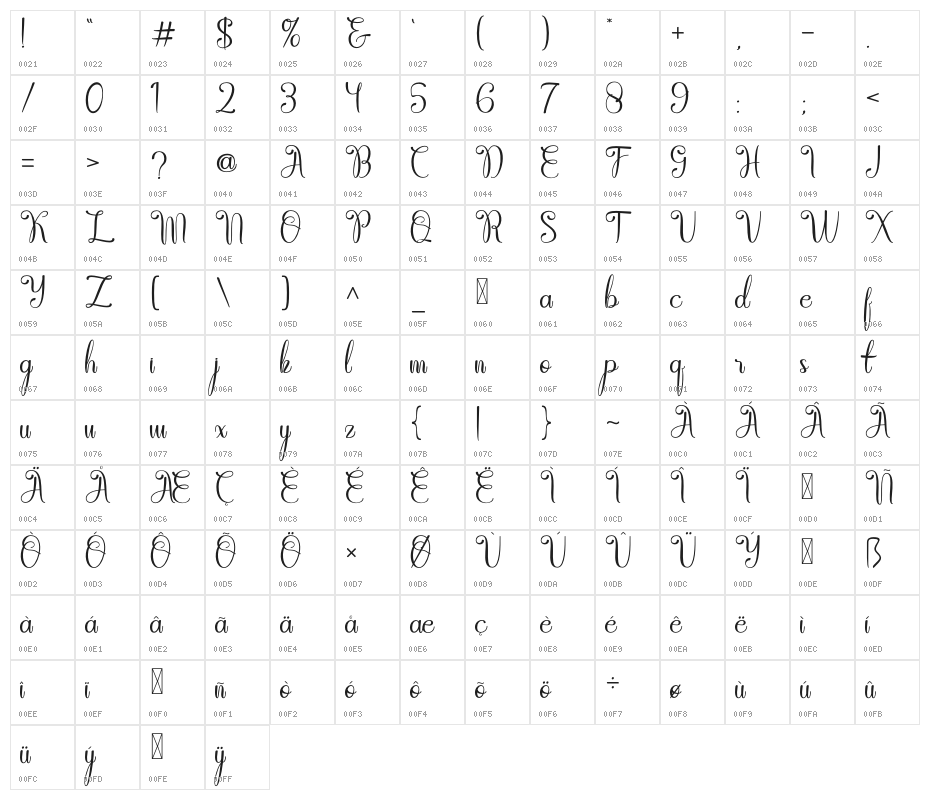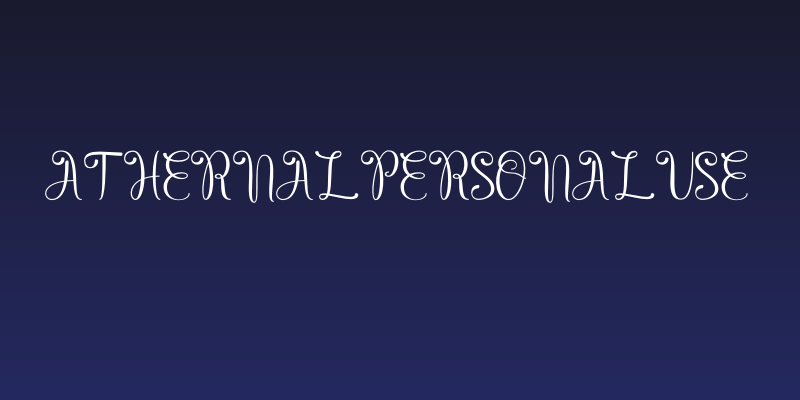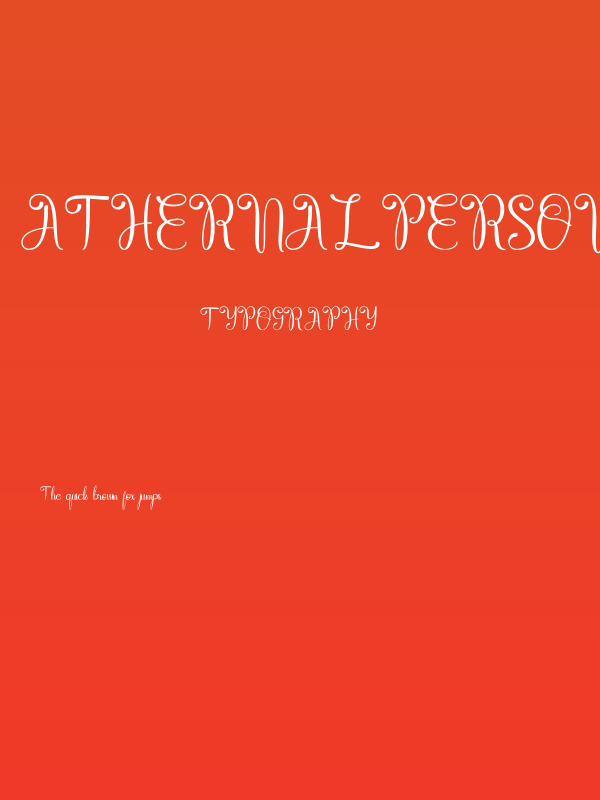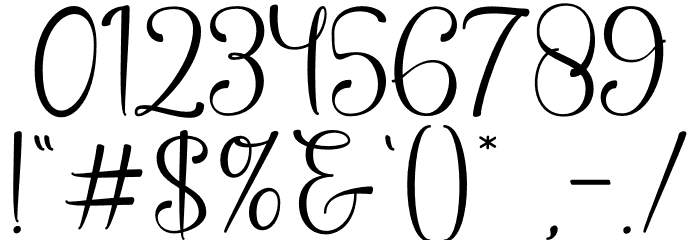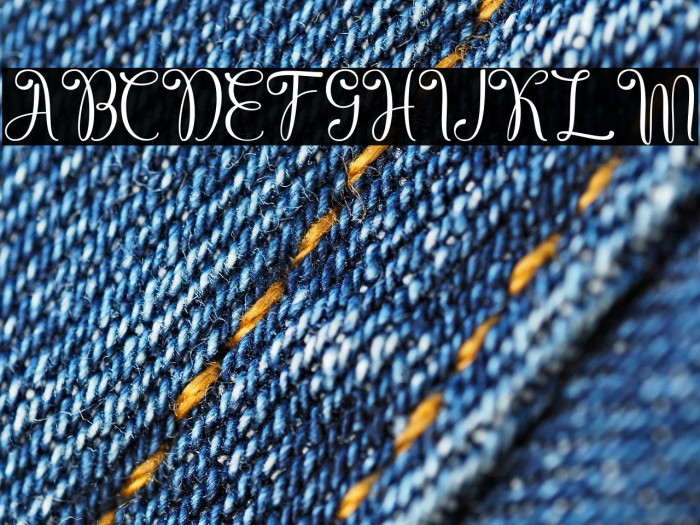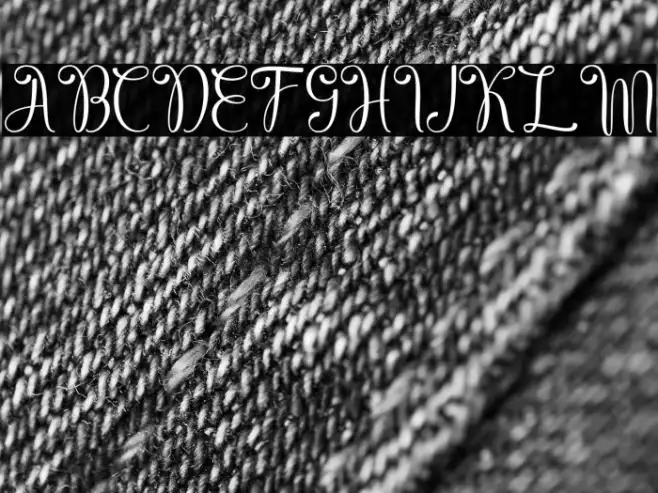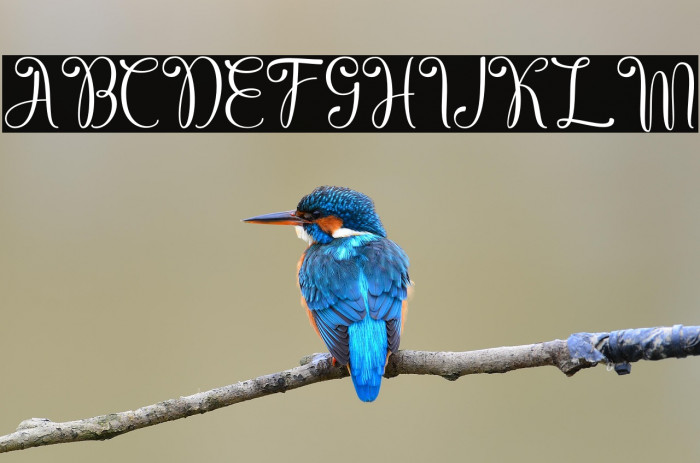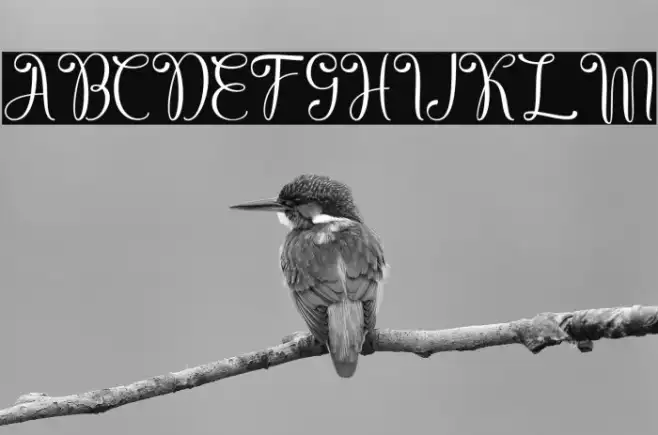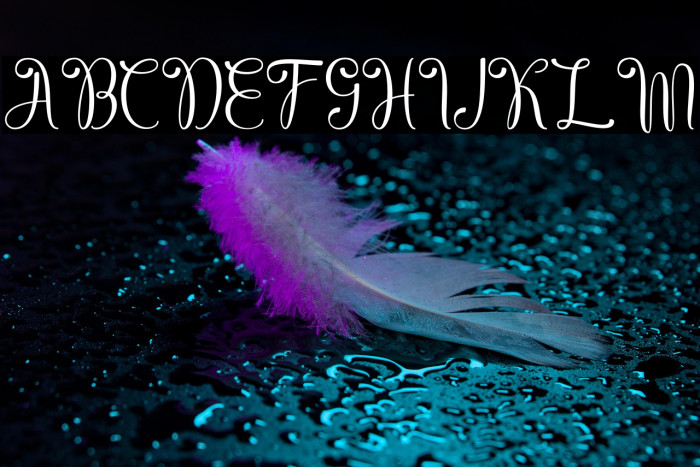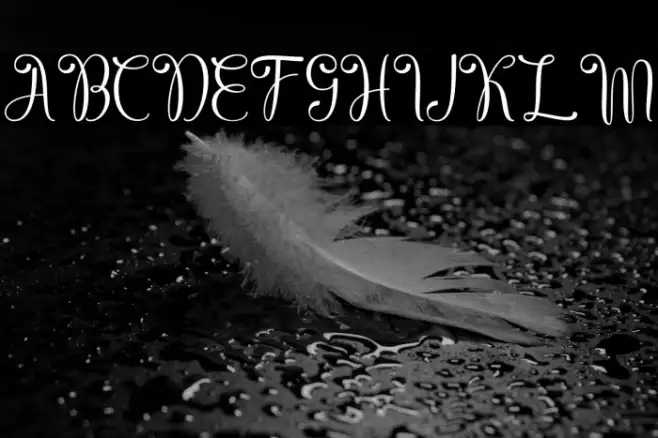
AthernalPersonalUse Font
AthernalPersonalUse Description
This font features an elegant and flowing script style, characterized by its looping and interconnected letterforms. The uppercase letters exhibit a graceful, swirling design that adds a touch of sophistication, while the lowercase letters maintain a consistent fluidity, enhancing readability. The numerals are distinct yet harmonize well with the overall aesthetic, featuring similar curves and loops. Special characters are thoughtfully designed to match the font's decorative nature, making it suitable for creative and artistic projects. The font's unique style is both eye-catching and versatile, ideal for adding a personal touch to any design.
| Proposed Projects | Ideal for wedding invitations, greeting cards, branding, and artistic projects requiring a personal touch. |